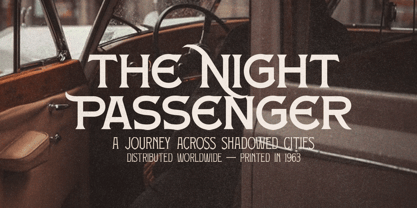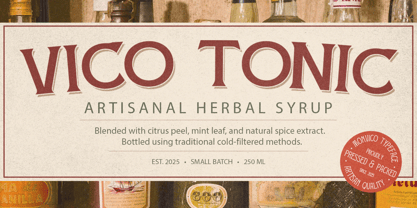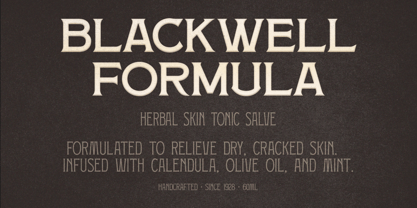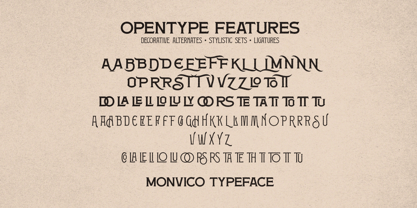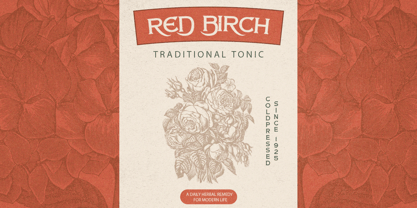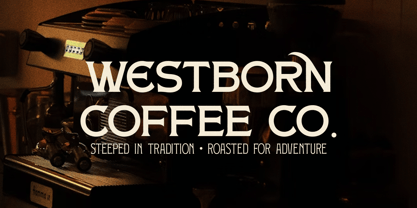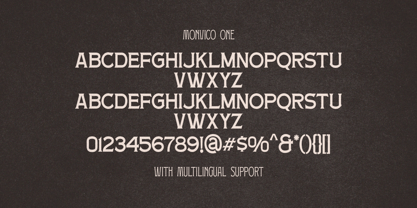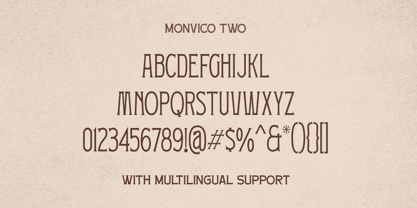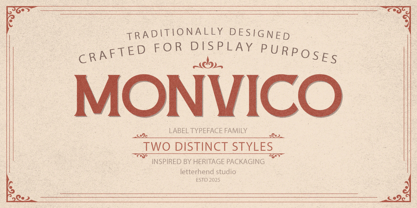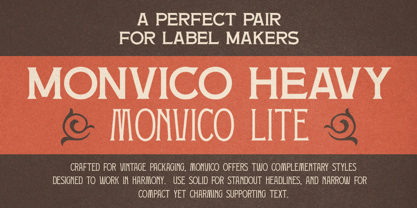
Monvico
Monvico is a bold and vintage-inspired label display font, carefully crafted with a traditional touch. It offers two distinct styles that are perfect for creating a strong visual identity, especially in designs inspired by heritage packaging and old-world branding.
This font is ideal for labels, logos, packaging, signage, posters, vintage branding, menus, and apparel design. With its bold character, clean curves, and classic proportions, Monvico gives your project an authentic and premium vintage feel.
Features :
• Uppercase & lowercase
• Numbers and punctuation
• Alternates & Ligatures
• Multilingual Support